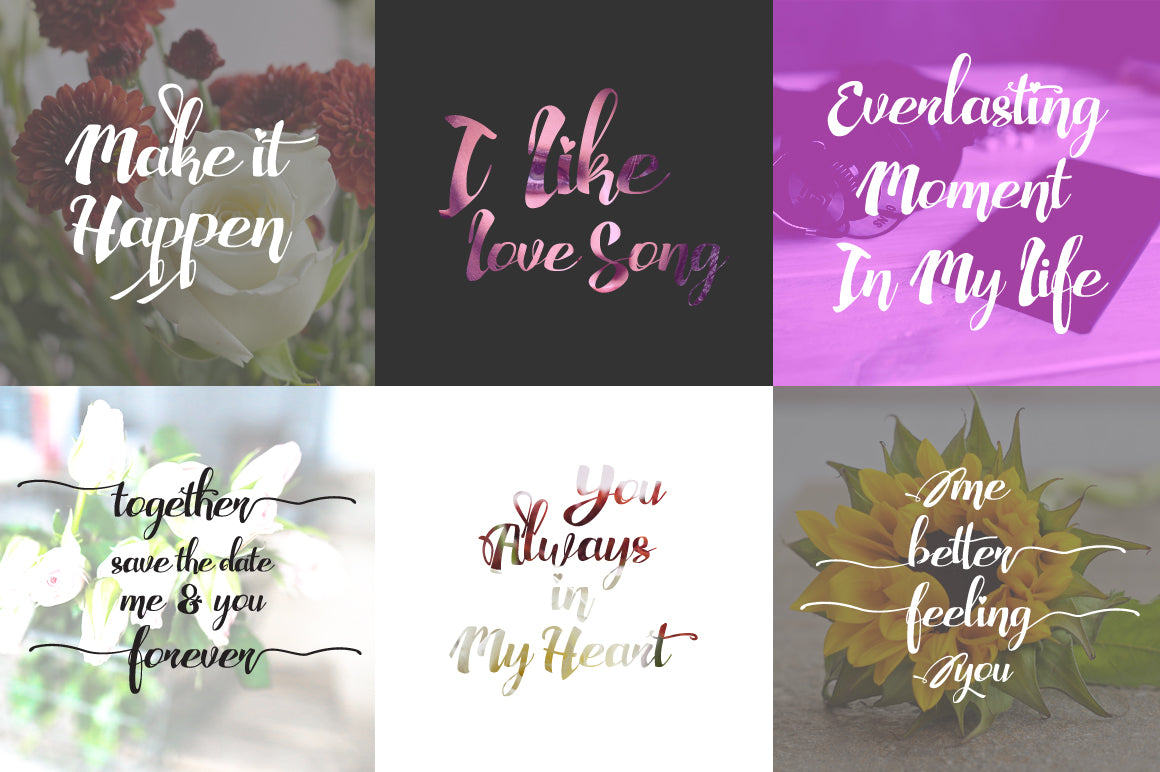
Free Adefebia Wedding Script Font
Featuring a free adefebia – wedding script font. Download this font from the original source of Pixelify. Amaze your fellow designers and create stunning designs with this beautiful font.